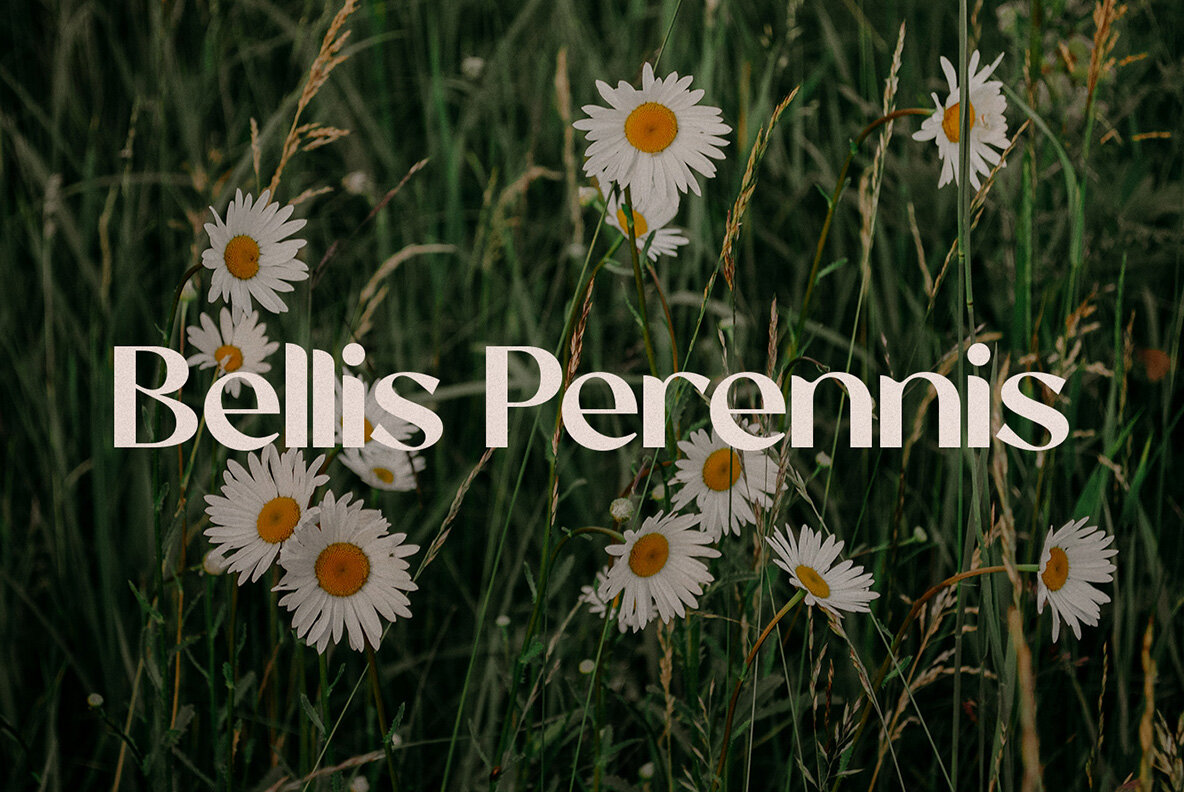
Eugusto Font
Eugusto - Sans Serif Display is a stylish font It has modern look. Comes with alternatives and ligatures, helps to create stunning logos, quotes, posts, blog posts. branding projects, magazine imagery, wedding invitations, and much more.